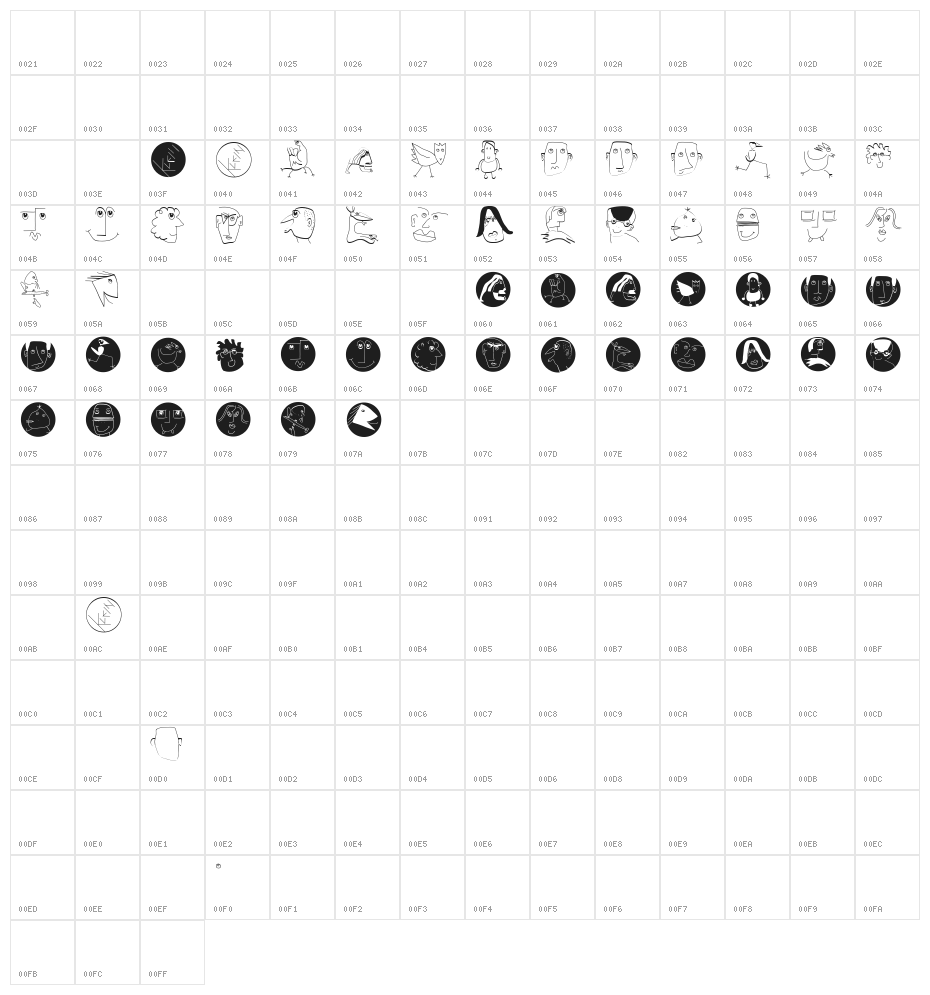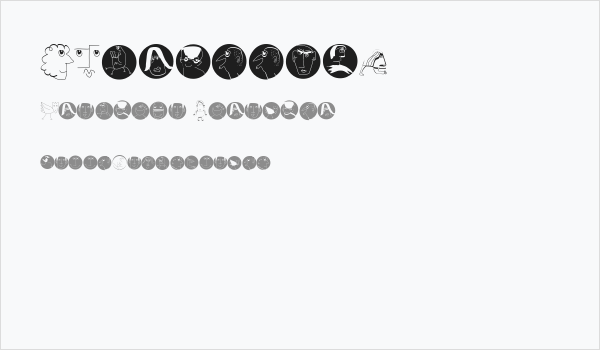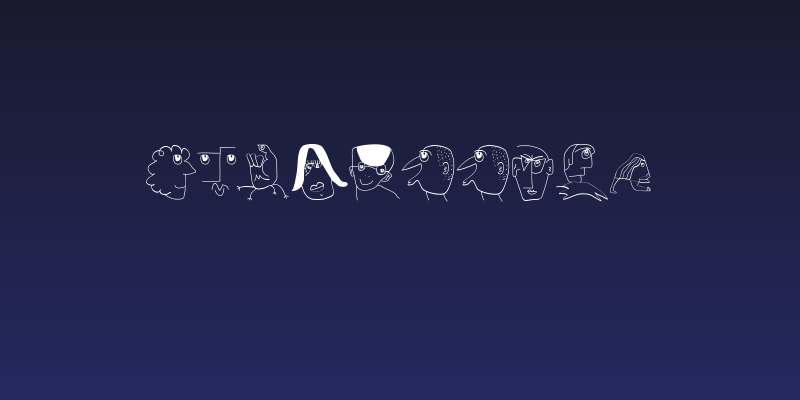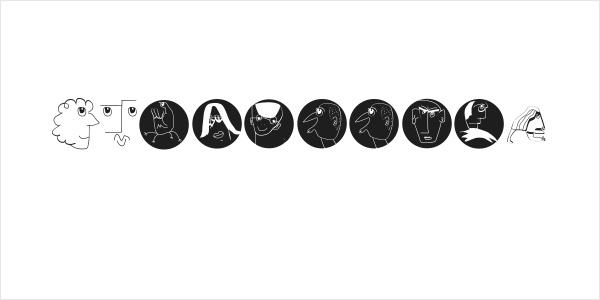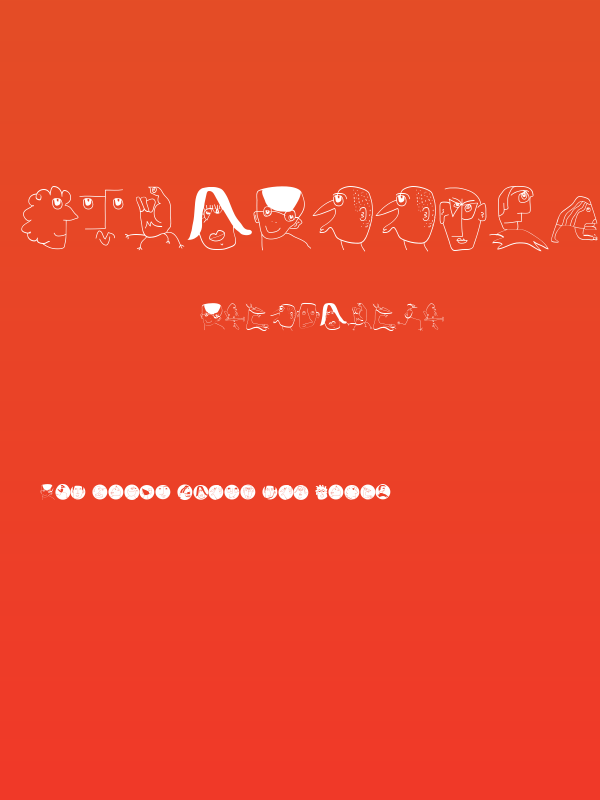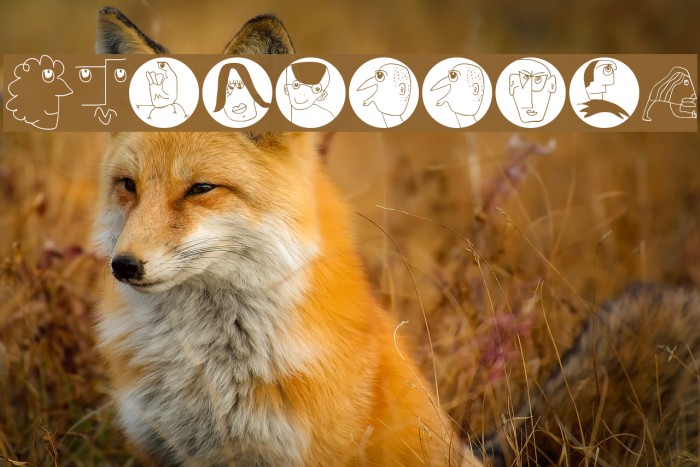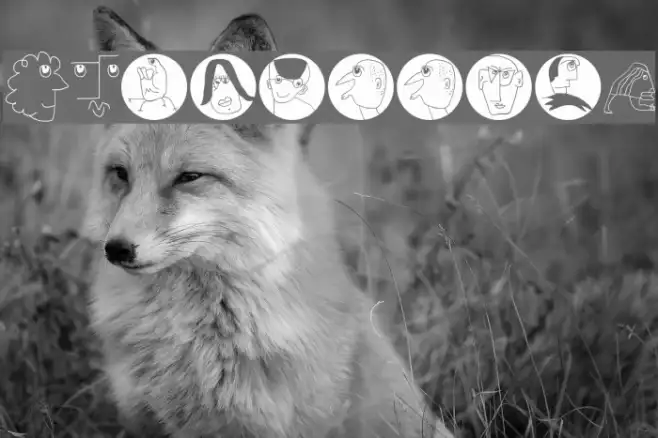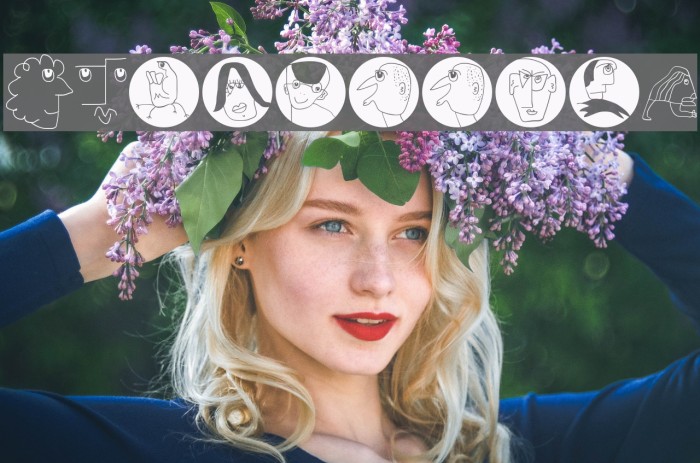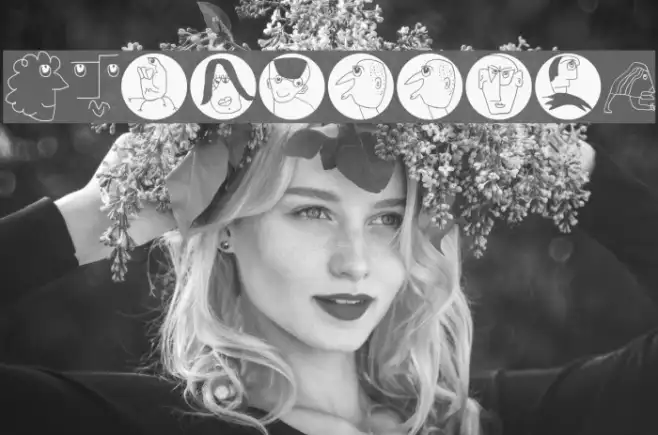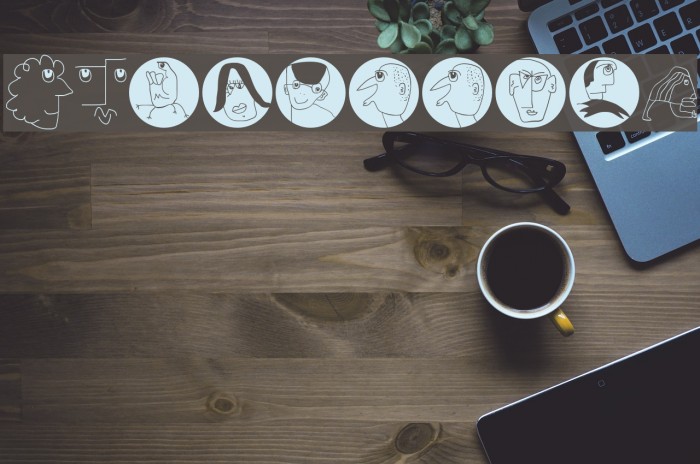
MKartoonsB Font
MKartoonsB Description
This is not a valid font. The image contains a series of abstract and cartoonish illustrations, each representing a different character or face. These illustrations are artistic and playful, featuring exaggerated facial features and whimsical expressions. The style is reminiscent of doodles or sketches, with a focus on creativity and humor rather than typography.
| Use Case | Illustrations, Graphic Design |
| Proposed Projects | These illustrations could be used for creative projects such as children's books, animation storyboards, or graphic design elements in playful contexts. |